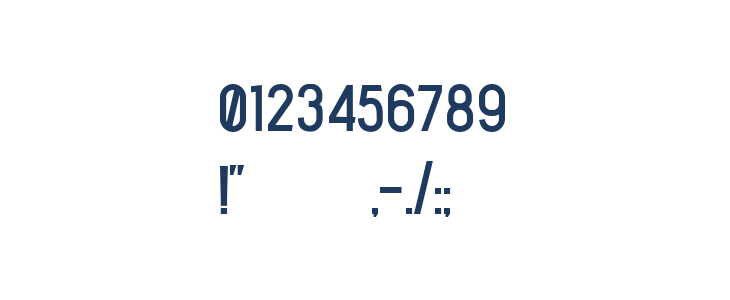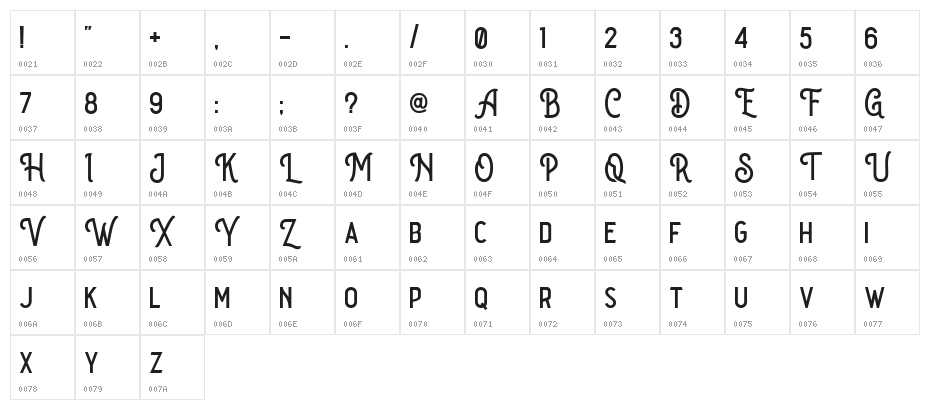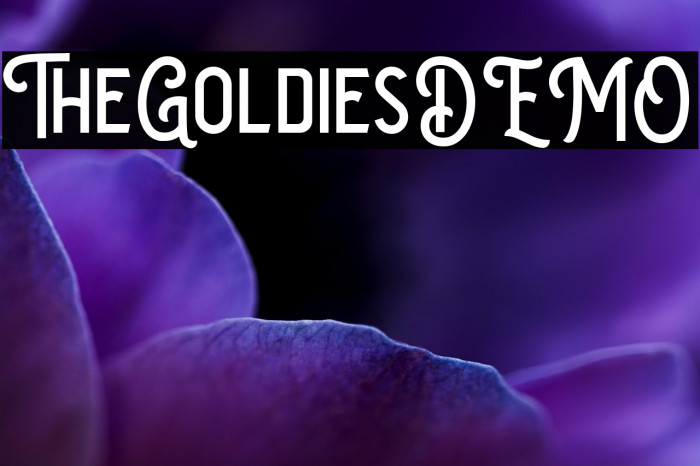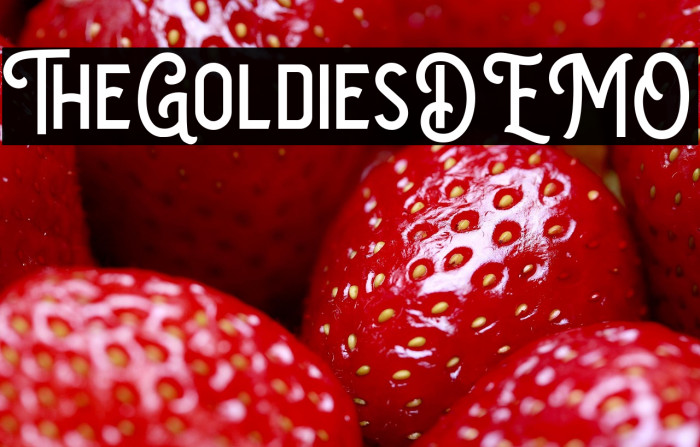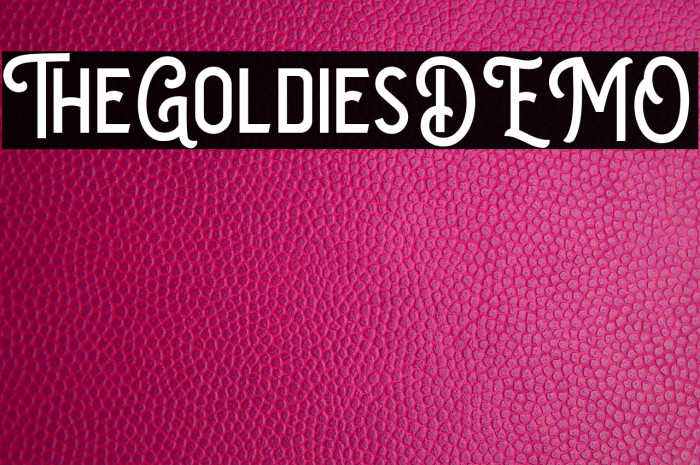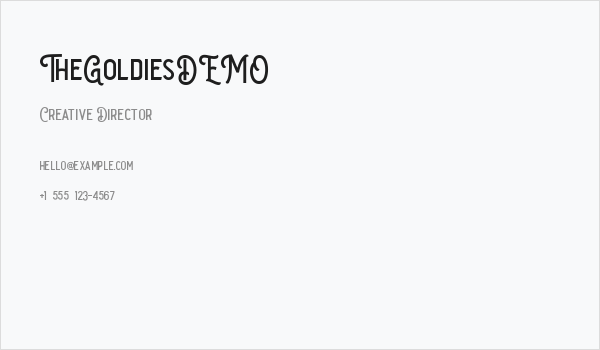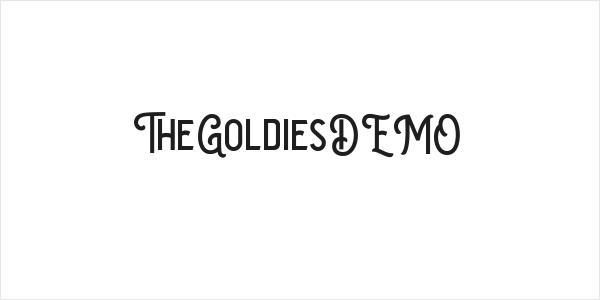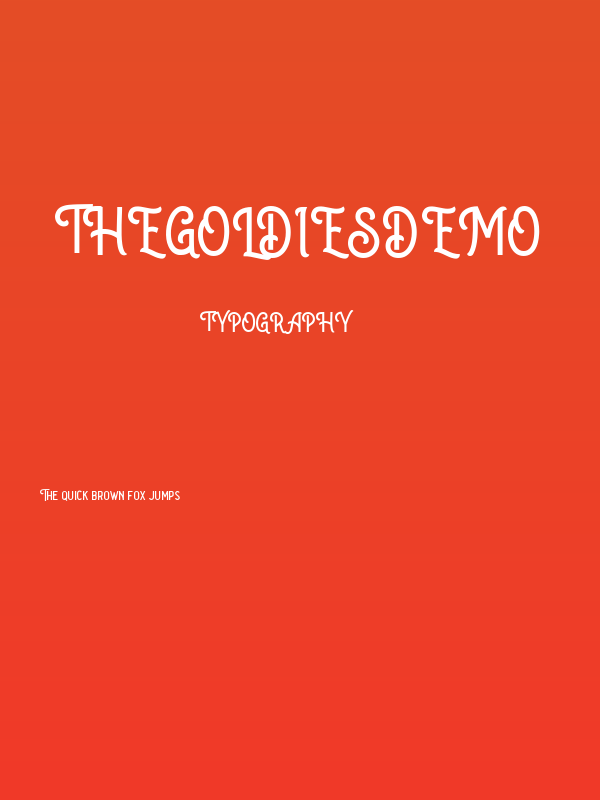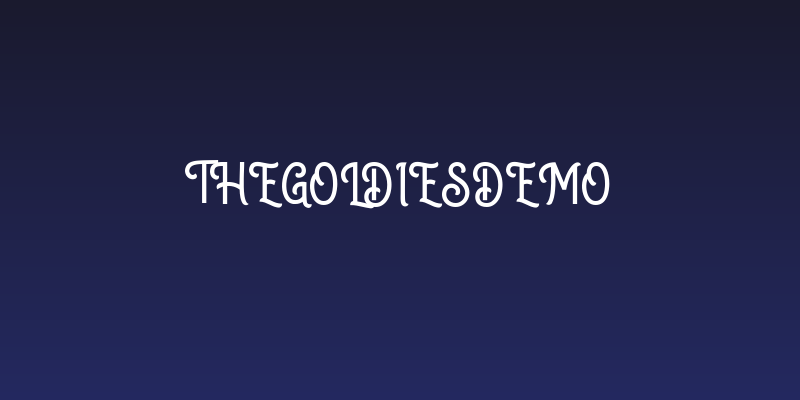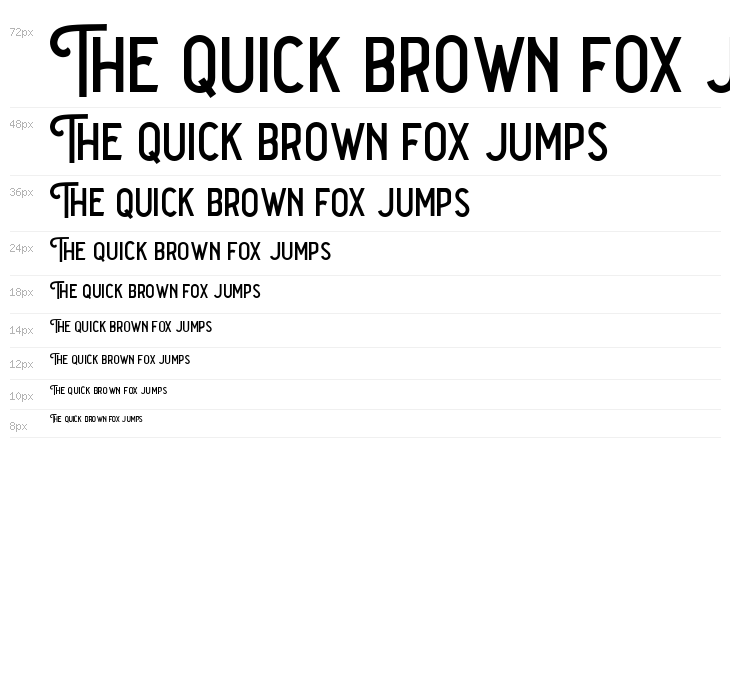
TheGoldiesDEMO Font
TheGoldiesDEMO Description
This font features a playful and decorative style with a unique blend of curves and straight lines. The uppercase letters exhibit a whimsical flair, with some characters incorporating loops and swirls, adding a sense of movement and creativity. The lowercase letters maintain a consistent style, complementing the uppercase with a slightly more restrained design. The numerals are bold and clear, ensuring readability while maintaining the overall decorative theme. Special characters are designed to match the playful aesthetic, making this font suitable for creative and artistic projects. The font's distinct style makes it ideal for eye-catching designs that require a touch of elegance and fun.
| Proposed Projects | Ideal for creative projects such as invitations, posters, branding, and packaging that require a unique and artistic touch. |